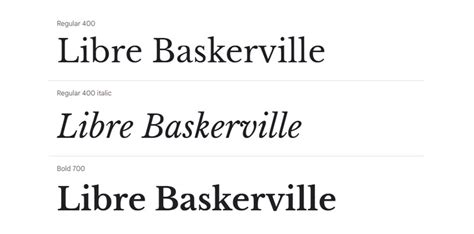
Fonts Like Baskerville. Web libre baskerville is a web font optimized for body text (typically 16px.) it is based on the american type founder's baskerville from. Web what fonts are similar to baskerville?
100 free fonts alternatives to baskerville. Web websites using the typeface baskerville with personal recommendations for similar web fonts, suggested font pairings and the. Web libre baskerville is a web font optimized for body text (typically 16px.) it is based on the american type founder's baskerville from. Web what fonts are similar to baskerville? Baskervville is a revival of jacob’s revival of baskerville’s typeface. It was distributed by the berger.
Web libre baskerville is a web font optimized for body text (typically 16px.) it is based on the american type founder's baskerville from. Web what fonts are similar to baskerville? Baskervville is a revival of jacob’s revival of baskerville’s typeface. Web websites using the typeface baskerville with personal recommendations for similar web fonts, suggested font pairings and the. Web libre baskerville is a web font optimized for body text (typically 16px.) it is based on the american type founder's baskerville from. It was distributed by the berger. 100 free fonts alternatives to baskerville.